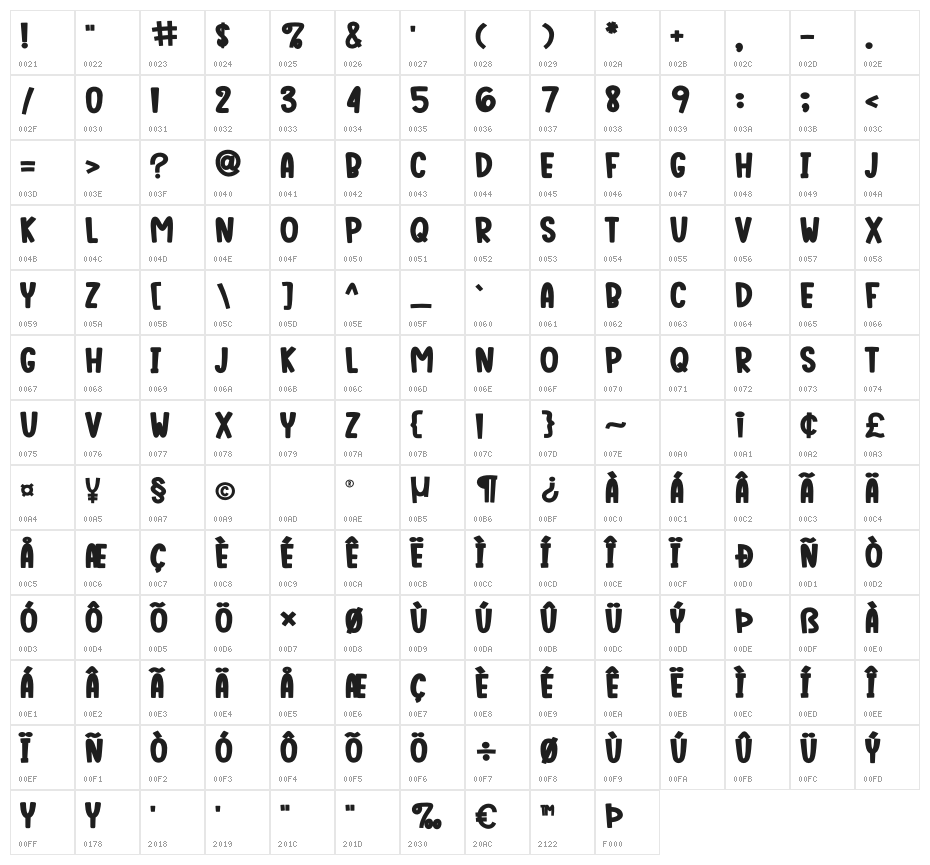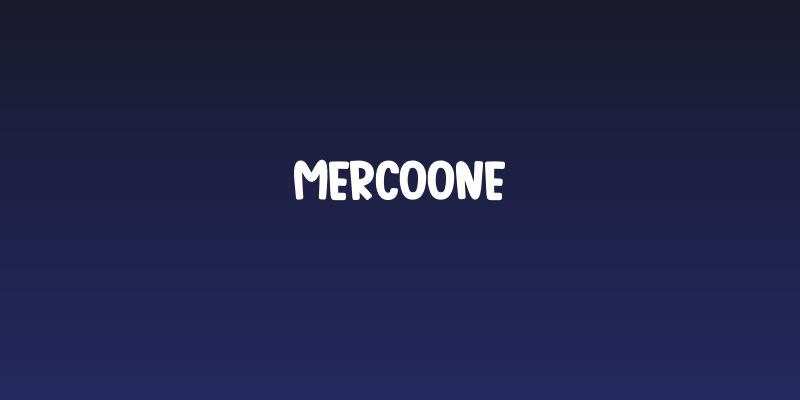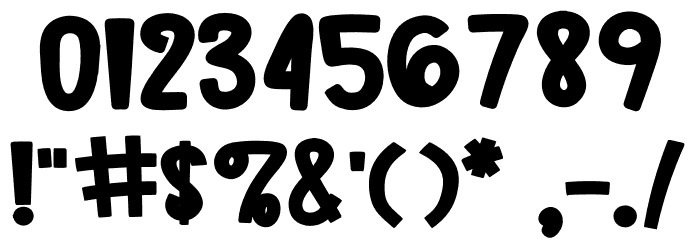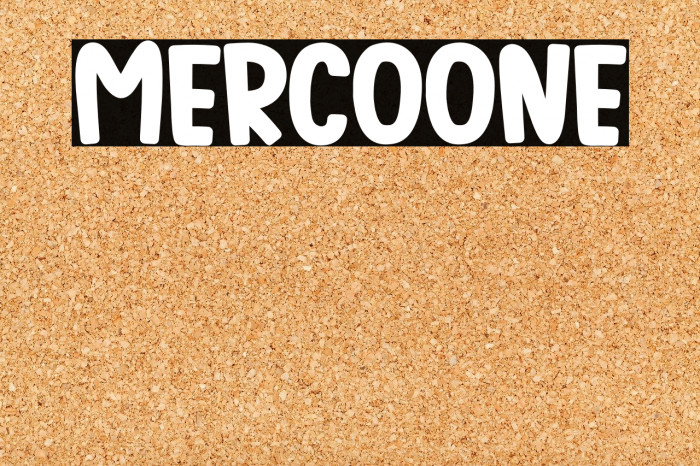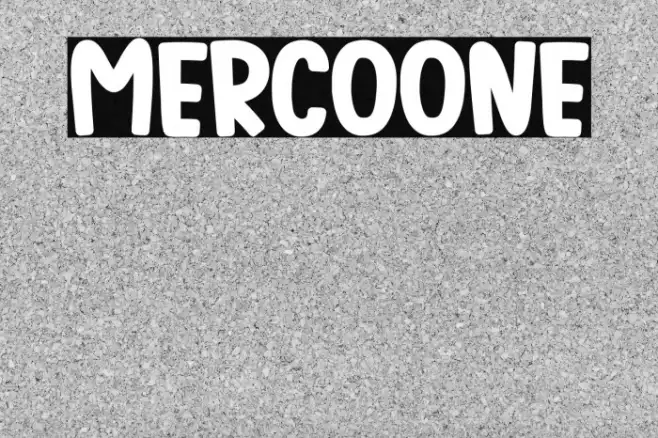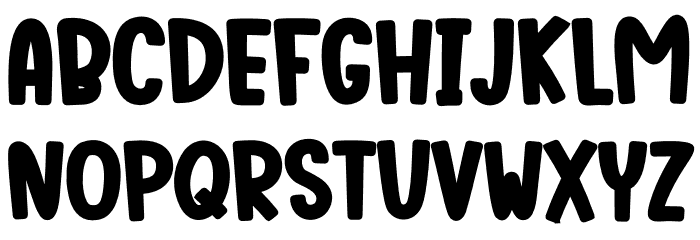
Mercoone Font
Mercoone Description
This font features a playful and bold design with rounded edges and a slightly irregular form, giving it a hand-drawn appearance. The characters are thick and uniform, creating a strong visual impact. The uppercase and lowercase letters maintain a consistent style, with a whimsical touch that adds personality. The numbers and special characters follow the same playful aesthetic, making the font suitable for creative and informal projects. Its boldness ensures readability while the unique style adds charm.
| Proposed Projects | Ideal for children's books, playful branding, posters, and creative design projects. |